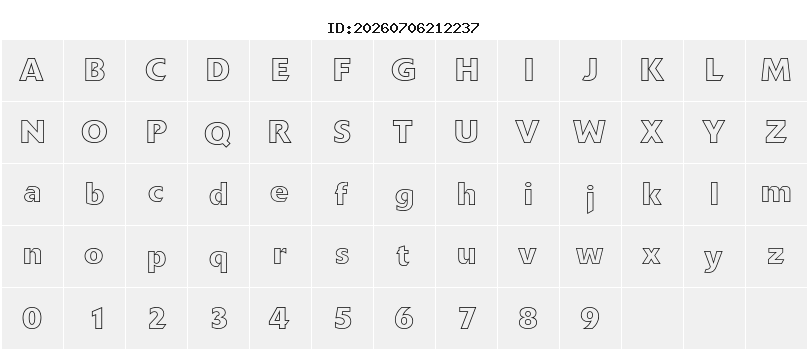
• Font Name: Delta Jaeger Outline
About Delta Jaeger Outline.otf
Delta Jaeger Outline.otf is a modern, elegant sans-serif font designed for ultimate readability and visual harmony. Perfect for branding, headlines, web design, and print materials.